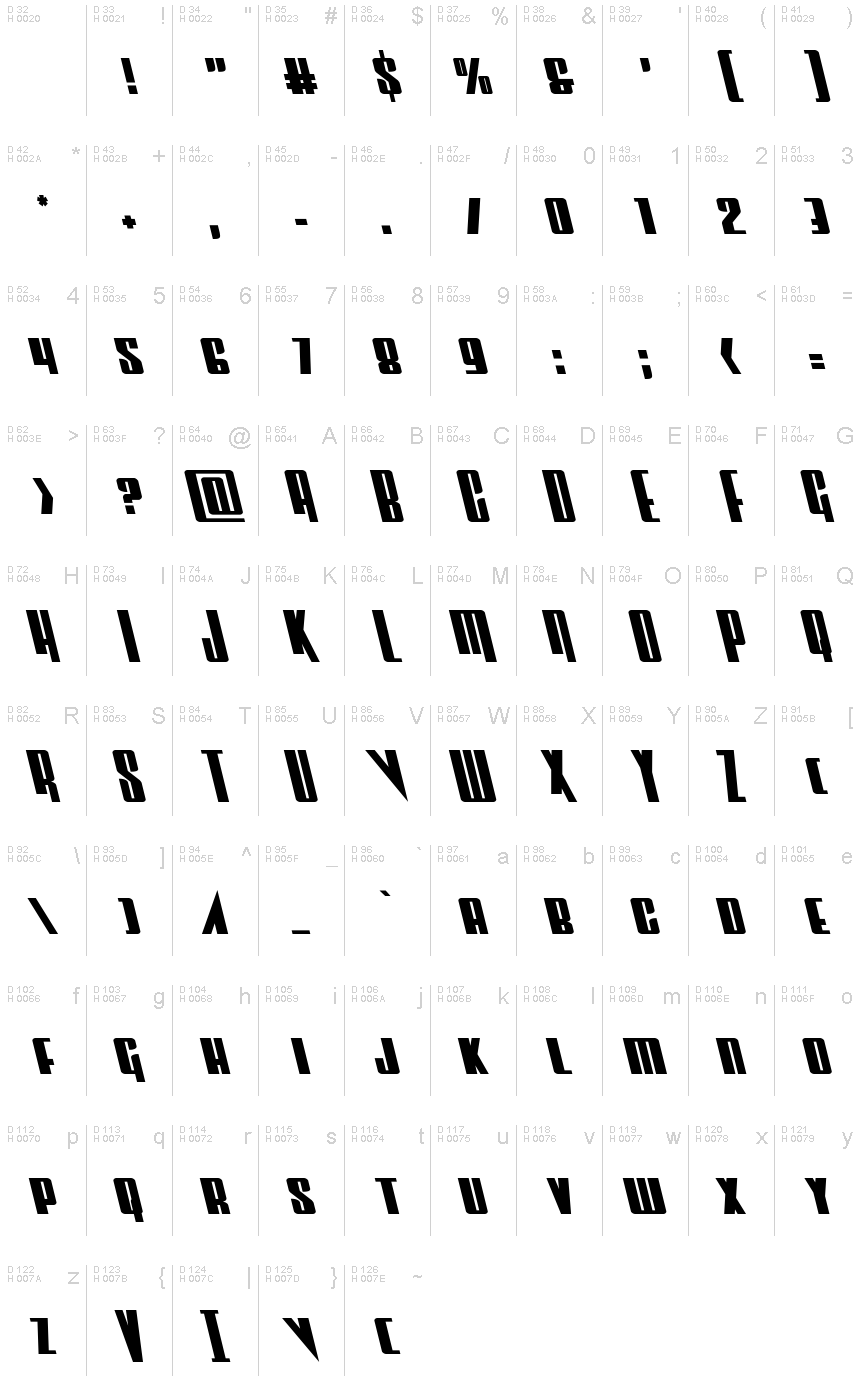
Vindicator Semi-Leftalic, a bold and captivating display font from the Vindicator family, exudes a commanding presence with its striking techno-inspired aesthetic. Designed by Iconian Fonts, this condensed font commands attention with its sharp, angular letterforms and a distinctive semi-left-aligned layout, creating a sense of forward momentum and dynamic energy. The bold weight and compact width lend an air of authority, making Vindicator Semi-Leftalic an impactful choice for a wide range of design projects.
The font's techno-inspired style and bold, condensed features make it a versatile choice for applications such as eye-catching headlines, prominent branding, and dynamic product packaging. Its distinctive visual identity can elevate digital interfaces, signage, and promotional materials, leaving a lasting impression on the viewer. Vindicator Semi-Leftalic's unique characteristics make it a compelling option for designers seeking to infuse their work with a bold, futuristic flair.